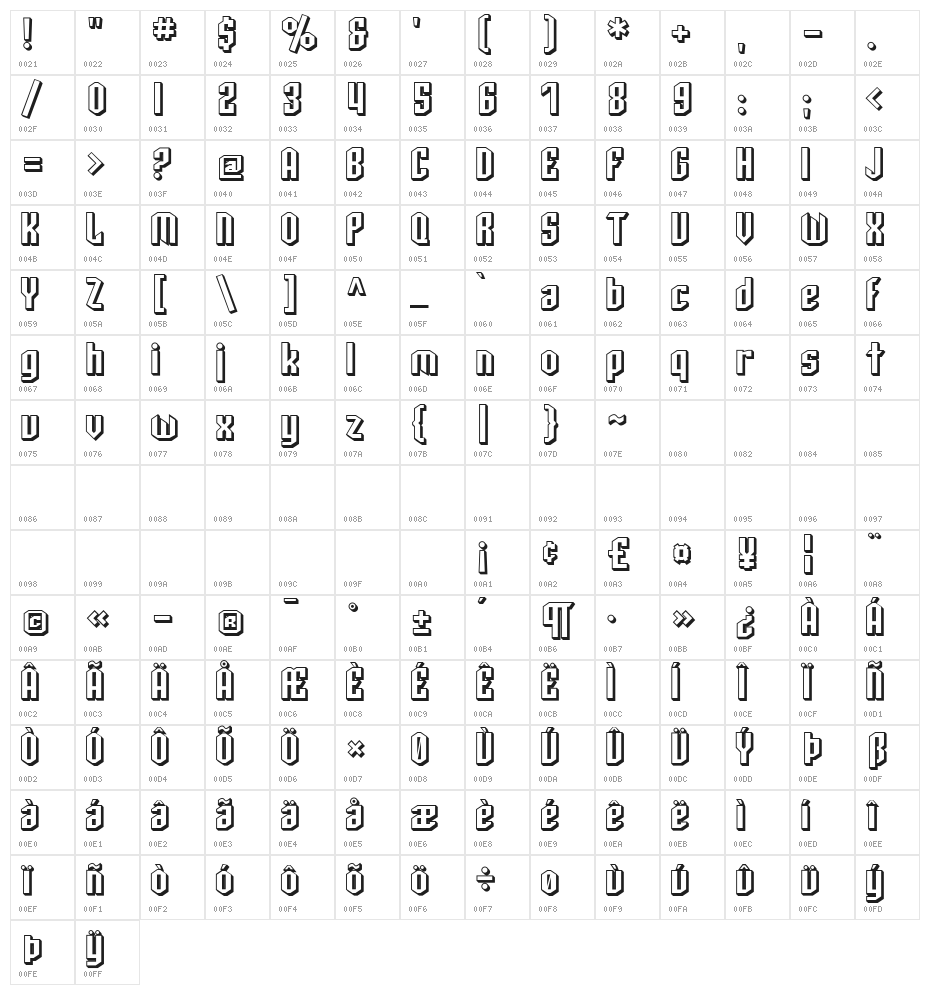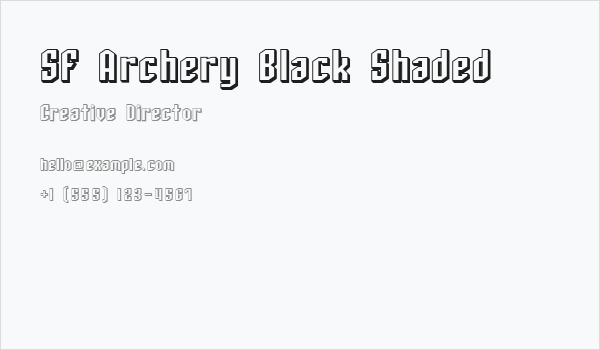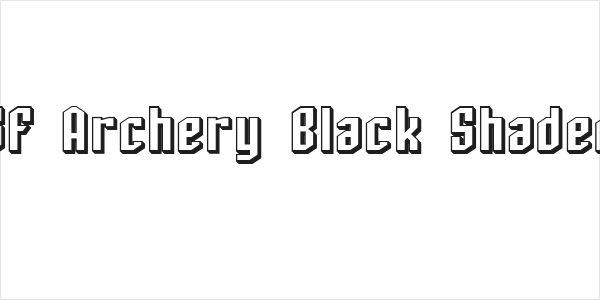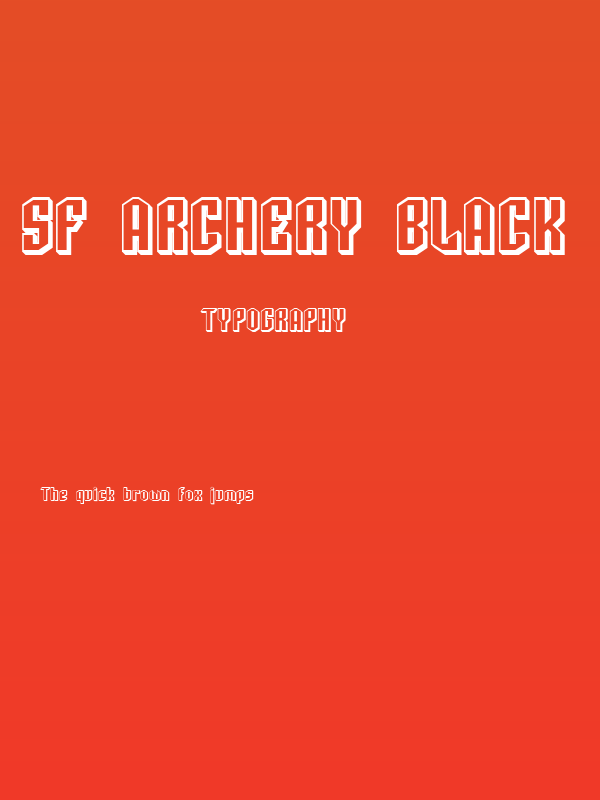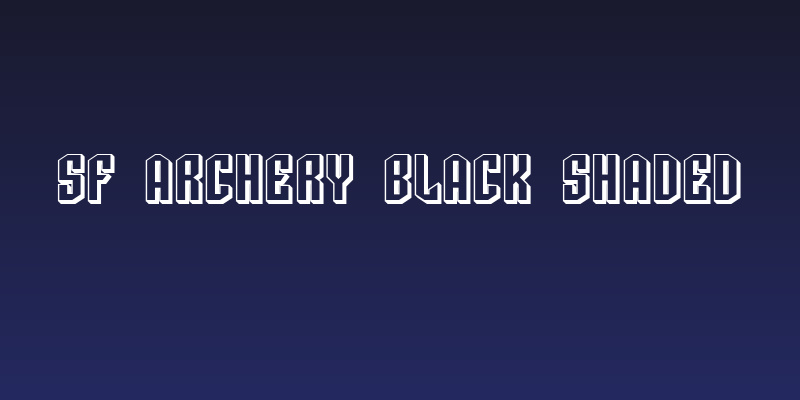
SF Archery Black Shaded Font
SF Archery Black Shaded Description
This font features a bold, geometric style with a three-dimensional effect created by a shaded outline. The uppercase and lowercase letters maintain a consistent blocky form, giving a sense of strength and stability. The numbers and special characters follow the same design principles, ensuring uniformity across all elements. The shading adds depth, making the characters appear to pop off the page. This font is highly legible and commands attention, making it ideal for impactful designs.
| Proposed Projects | Ideal for posters, logos, video game graphics, and any project requiring a strong, eye-catching typeface. |